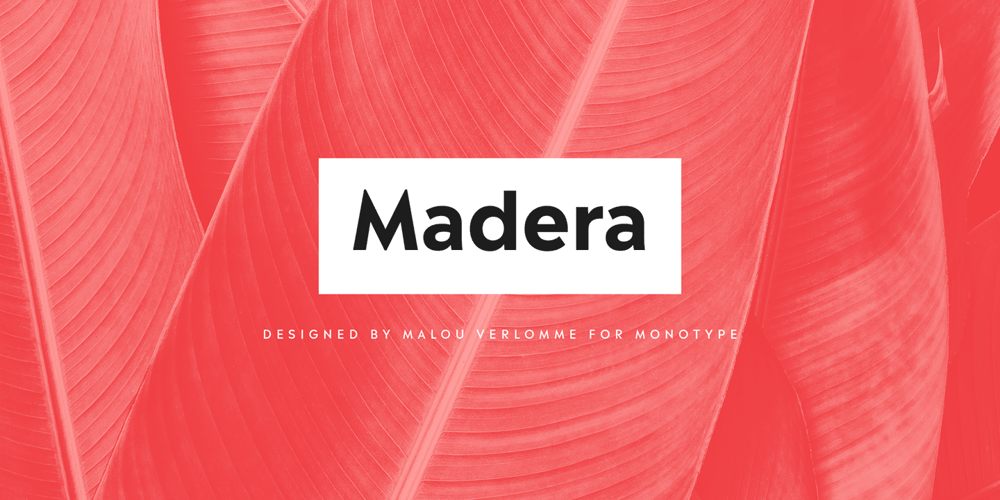
Madera Font Family was designed by Malou Verlomme and published by Monotype. Madera contains 32 styles and family package options. Malou Verlomme designed Madera with graphic designers in mind – drawing on his decade of experience designing bespoke type to create a versatile, easy-to-use geometric sans serif that ticks off a long list of branding requirements. Its sharp apexes add some flavour to the design, which offers an honest, trustworthy tone of voice – but with a twist. “The design doesn’t go out of its way to attract attention, but is still very solid,” explains Verlomme. “It still has a fair amount of warmth and personality, in a very understated manner. If you’re a large corporation, with a typeface being used in many different environments, you want something that’s easy to use but can sustain such a large amount of visibility.” The Madera typeface family has 32 fonts: Upright, Condensed and Italics. Each typeface contains over 650 glyphs with extensive Western, Central and Eastern European language support. It also supports OpenType typographic features like alternatives, ligatures and fractions. Madera Variables are font files which are featuring two axis and have a preset instance from Hairline to Extra Black.